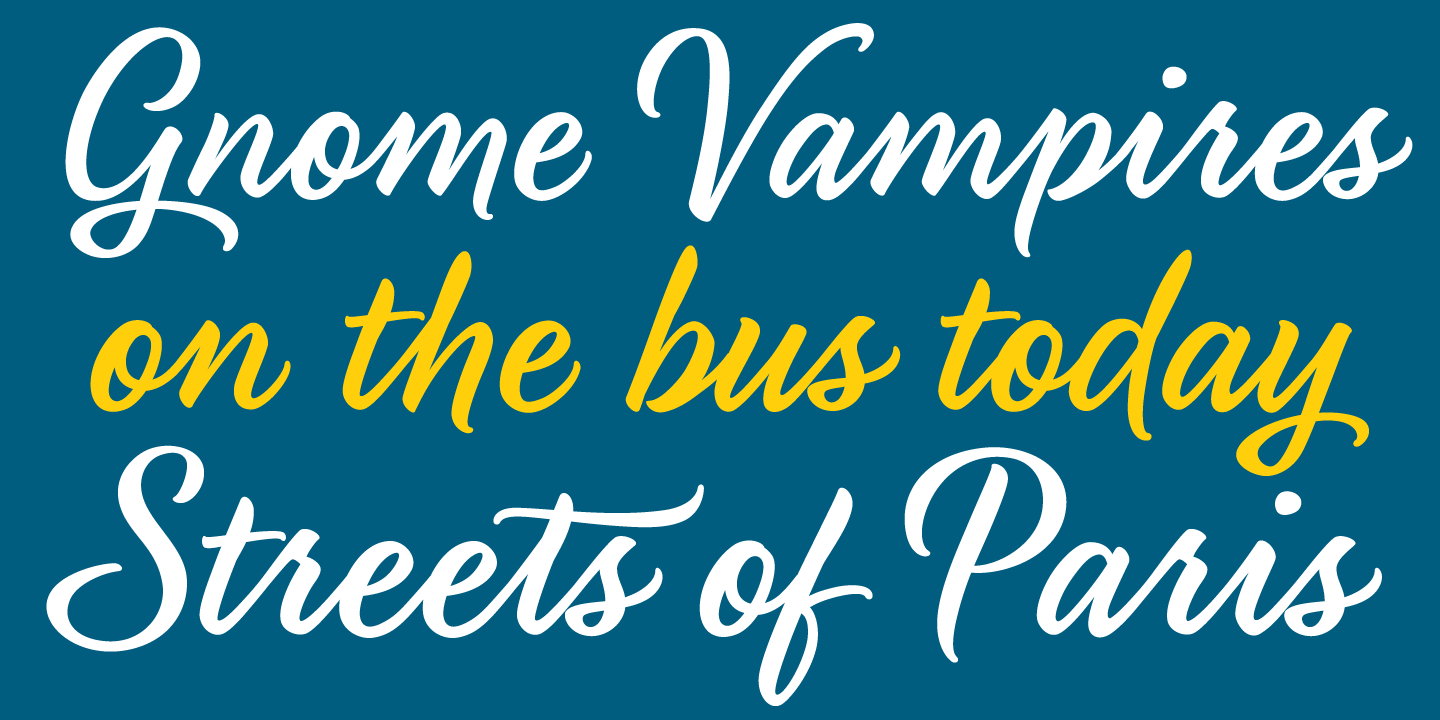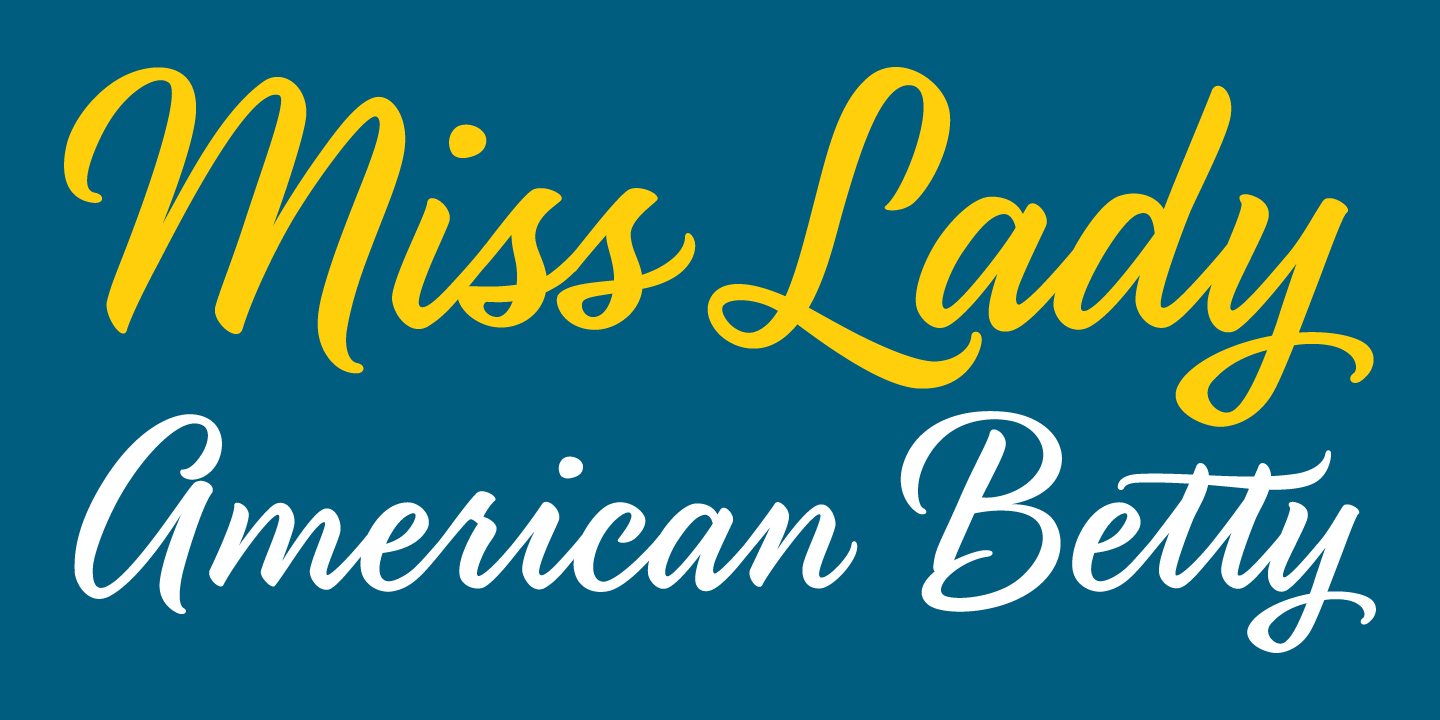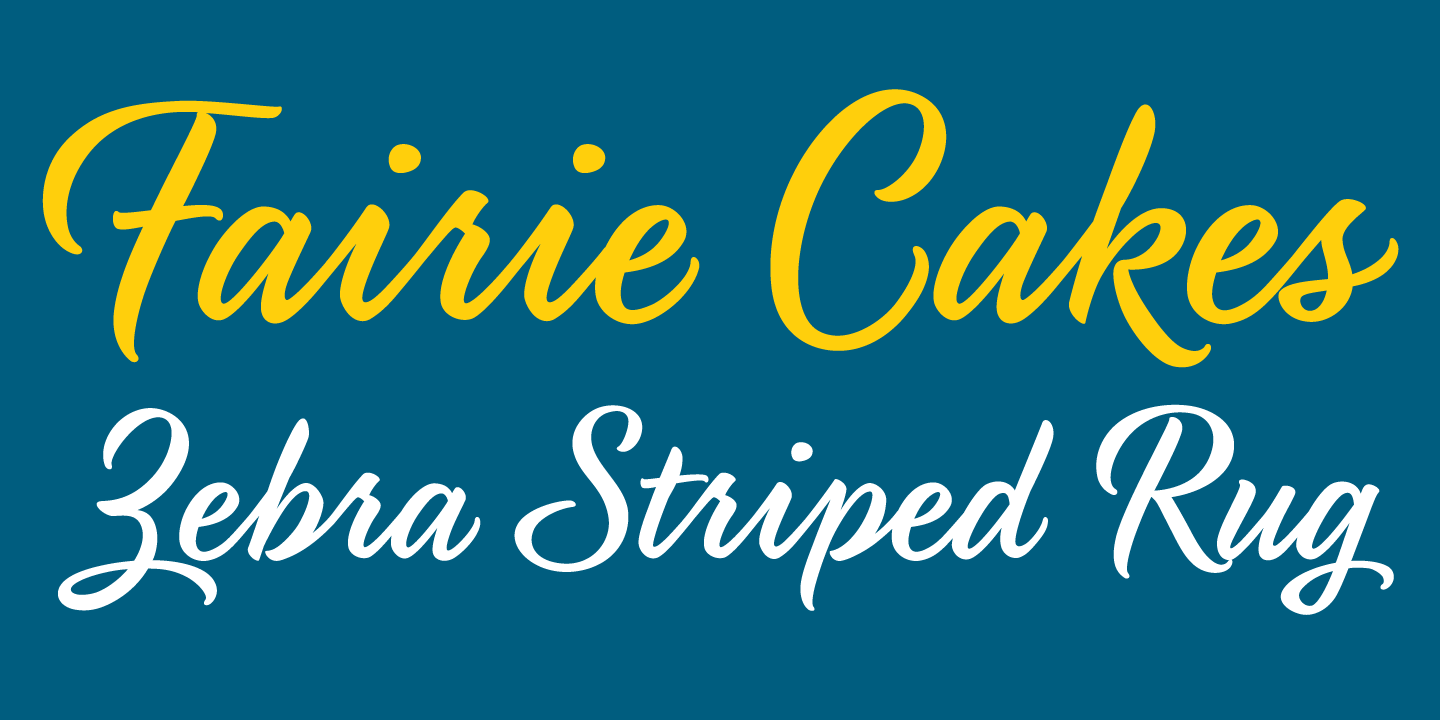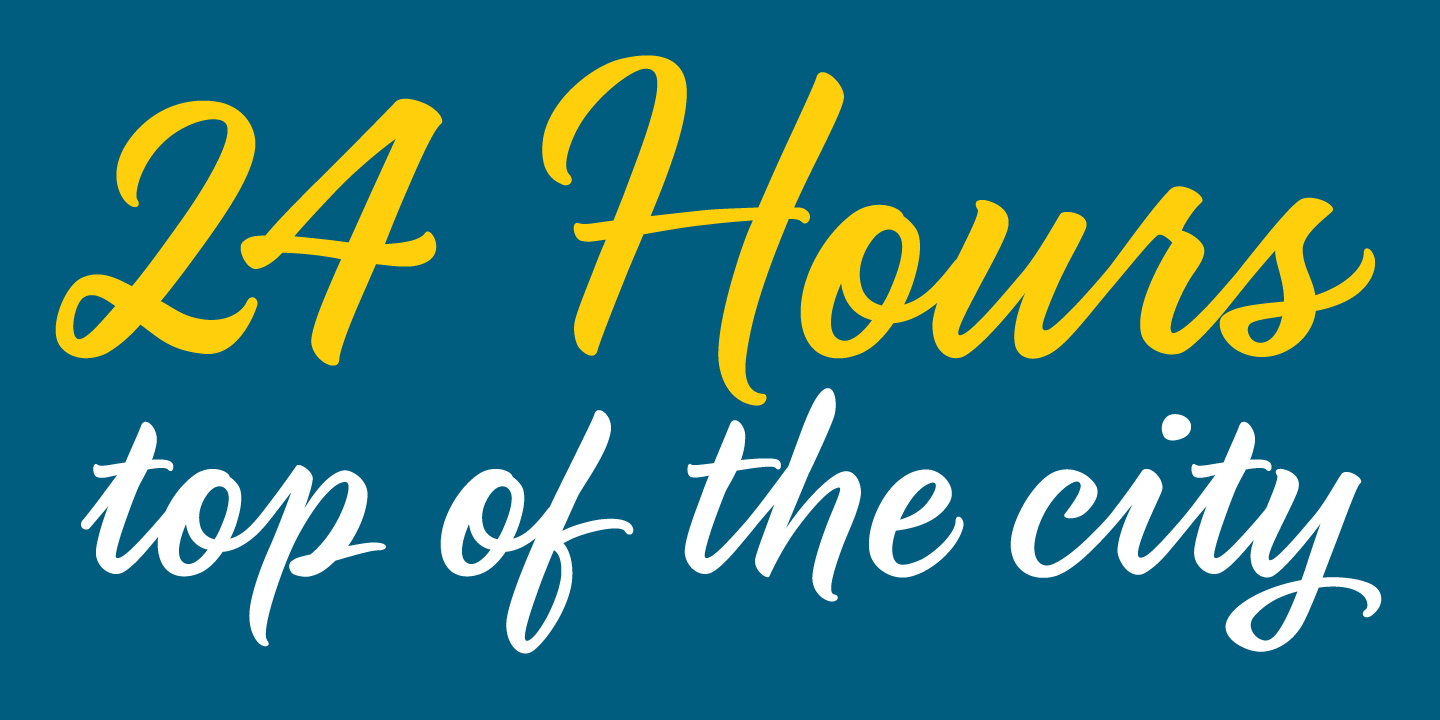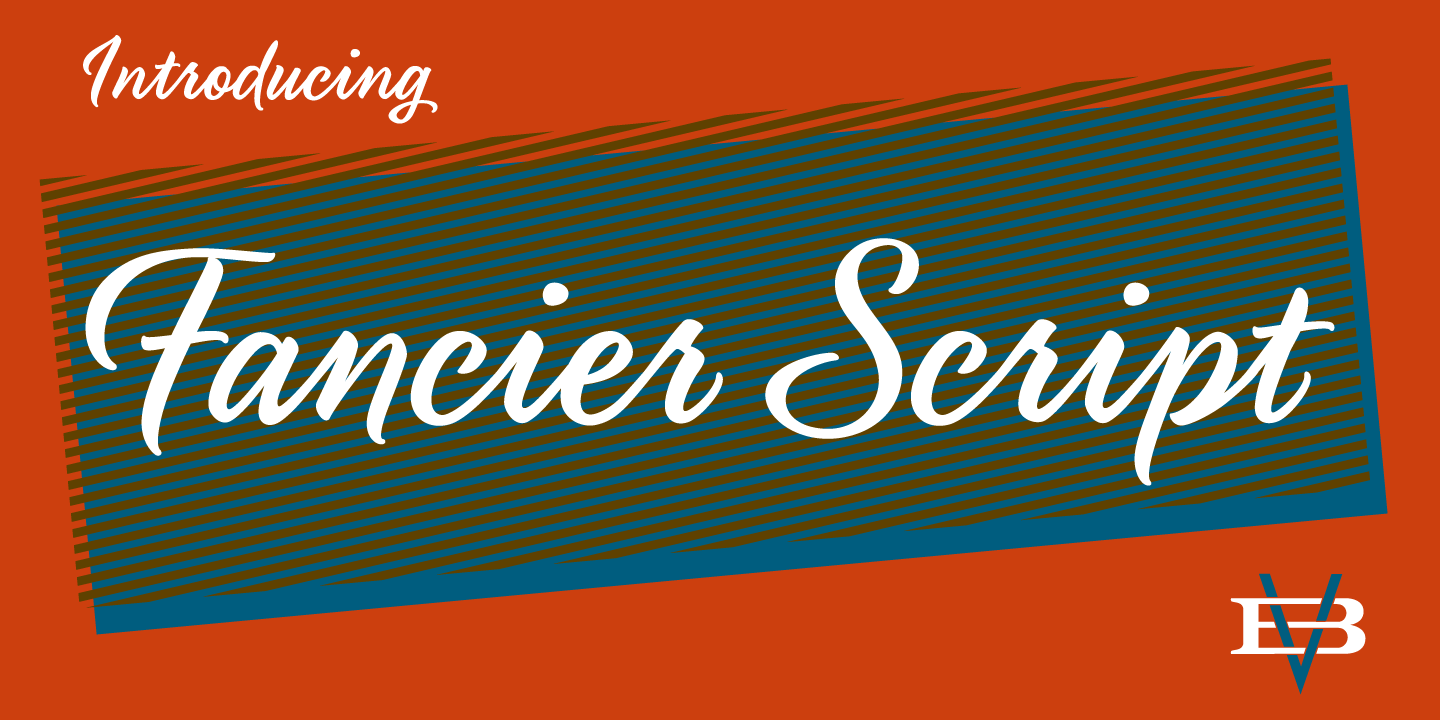
HomeFont BrosScripts: CasualFancier Script Scripts: CasualScripts: Formal Fancier Script FacebookXPinterestWhatsApp 1 of 5 About Fancier Script Inspired by sign painters of the past, Fancier Script is a bold and highly customizable script face. With all the OpenType features turned on, watch the letters instantly customize as you type.  DOWNLOAD NOW People also explored Simple Beautiful Sadar Senso Font Soft Whisperings Font Wilderness Font Sidney Font Anitha Font Strenghtque Font Apotaris Font Rainbow Club Font 464 0 TagsFancier Script Font Previous articleOriginal Surfer ProNext articleWander Full LEAVE A REPLY Cancel reply Comment: Please enter your comment! Name:* Please enter your name here Email:* You have entered an incorrect email address! Please enter your email address here Website: Save my name, email, and website in this browser for the next time I comment. Personal Use Free Proudly Personal Use Free Read more about this font 5cent Free Graffiti Personal Use Free Read more about this font Street Cred Personal Use Free Read more about this font Pan Pizza Personal Use Free Read more about this font BLOG How to Cut Any Font on Cricut: Convert a Font to SVG (Free) Turn any font into a clean SVG so it cuts crisp on Cricut - a quick 3-step workflow using a free font-to-SVG tool. Using Fonts in Digital Marketing: Tips to Strengthen Your Brand Identity How to Install and Use Fonts on Windows, macOS, and Web Projects Where to Buy American Fonts Online in 2024